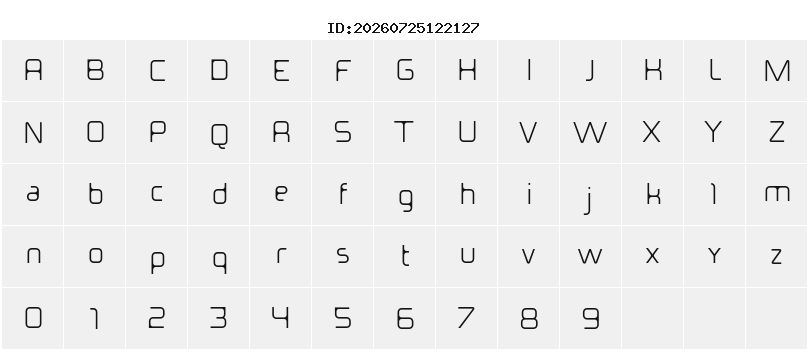
ideoma MIAGUIII Preview
• Font Name: ideoma MIAGUIII
• Full Font Name: ideomaMIAGUIII
• PostScript Name: ideomaMIAGUIII
About ideoma MIAGUIII.otf
ideoma MIAGUIII.otf is a modern, elegant sans-serif font designed for ultimate readability and visual harmony. Perfect for branding, headlines, web design, and print materials.